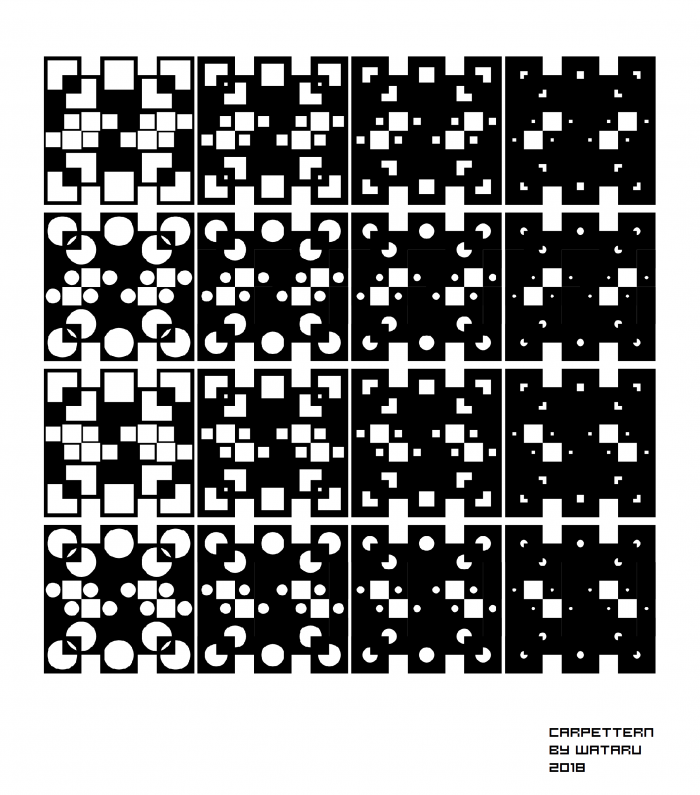
Great effects, very graphic, very decorative, abstract beauty. Reminds me of stained glass but I wouldn't know which artist might have inspired that style (it's not Renaissance, Gothic, Art Deco, De Stijl - maybe it's from the Aisonian period;) )